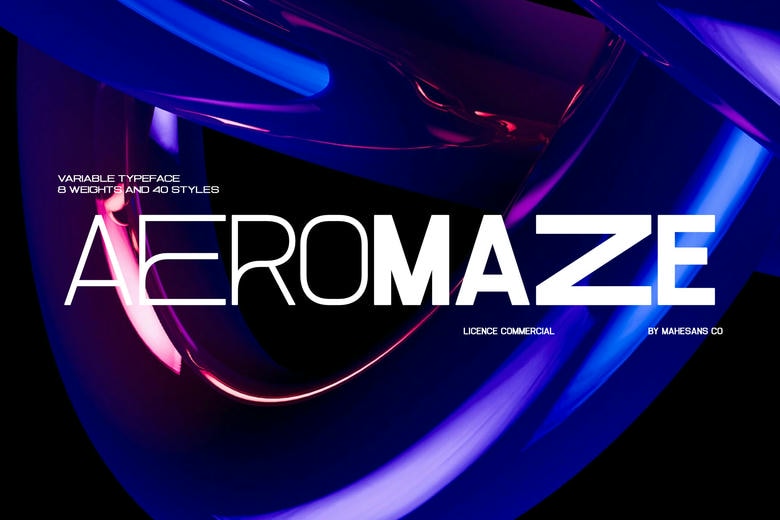
Aeromaze Font Family
Aeromaze is a modern urban sans serif font made for creators who want to stay ahead. Its clean lines, sharp edges, and sleek, tech-inspired look help it stand out.
Aeromaze is a great choice for fast-paced digital projects. It works well for movie posters, tech brands, fashion spreads, and user interfaces, and looks good in both bold headlines and simple layouts.
Its modern design combines precision and personality, making it a strong choice for branding, esports graphics, music covers, sci-fi projects, packaging, and social media campaigns.
Aeromaze Sans Serif Font Family